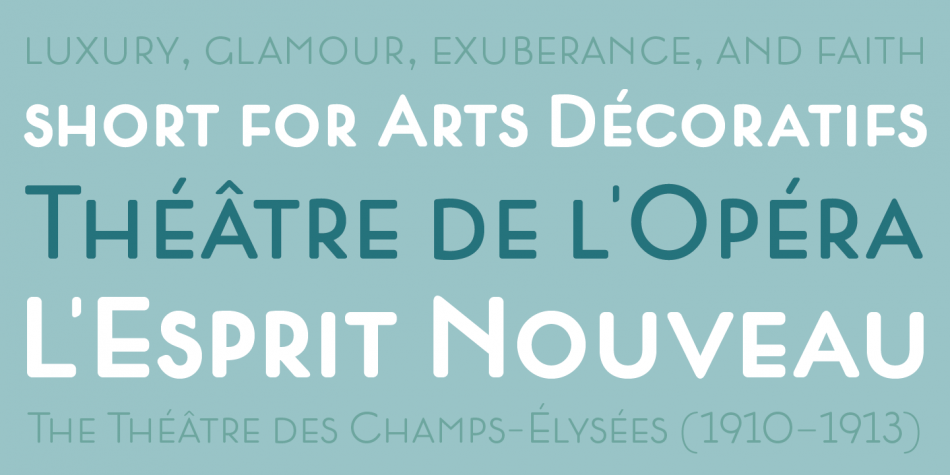
| Designed by Dusan Jelesijevic, Lumier Rounded is a display sans and art deco font family. This typeface has three styles and was published by Tour de Force Font Foundry. |
Lumier Rounded is rounded version of our Lumier family .